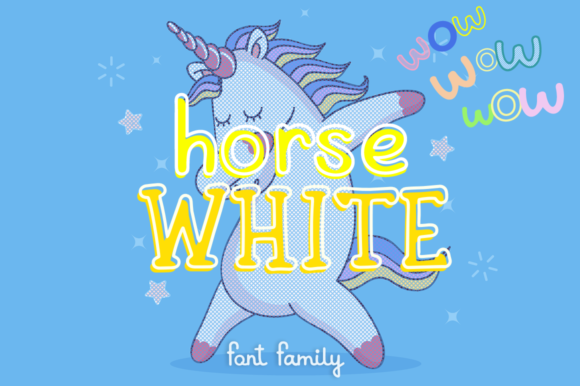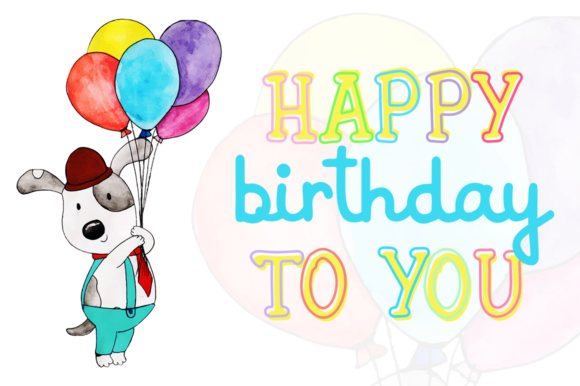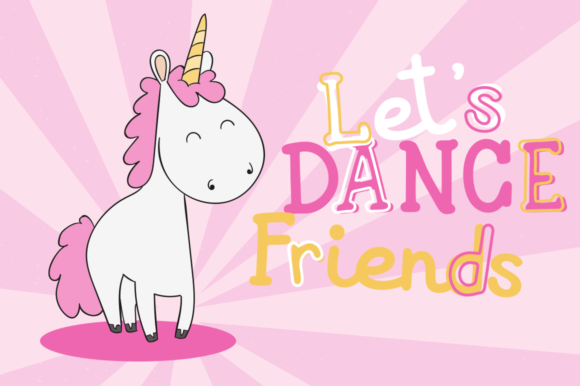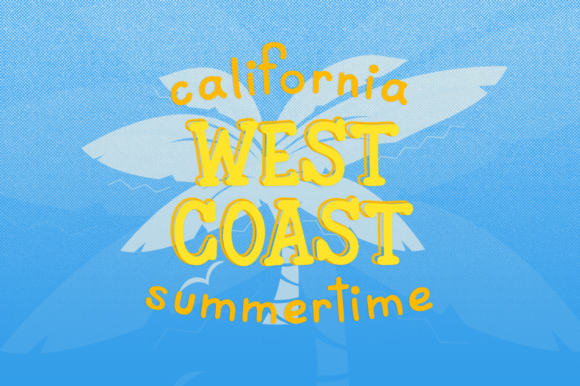
About White Horse Font
White Horse was created together with my daughter, she is only four years old and she is very creative! She has always inspired me, and she took part in the creation of this font, as well as in the choice preview images. I hope you like it!
White Horse is ideal for branding and decorating your projects and is perfect for wedding invitations, blogs, logos or a beautiful frame for your home.